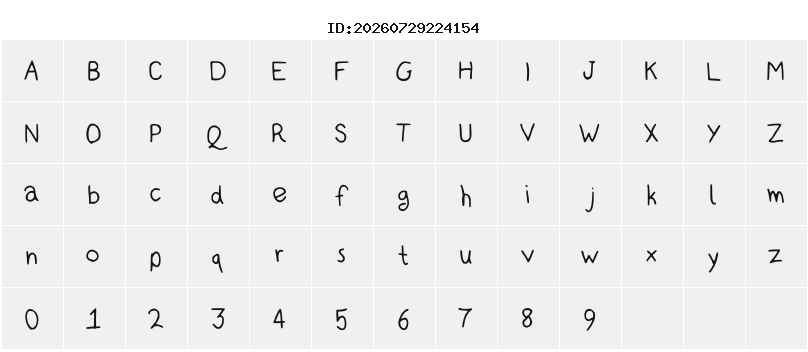
• Font Name: KidSans
• Full Font Name: KidSans
About KidSans.ttf
KidSans.ttf is a modern, elegant sans-serif font designed for ultimate readability and visual harmony. Perfect for branding, headlines, web design, and print materials.